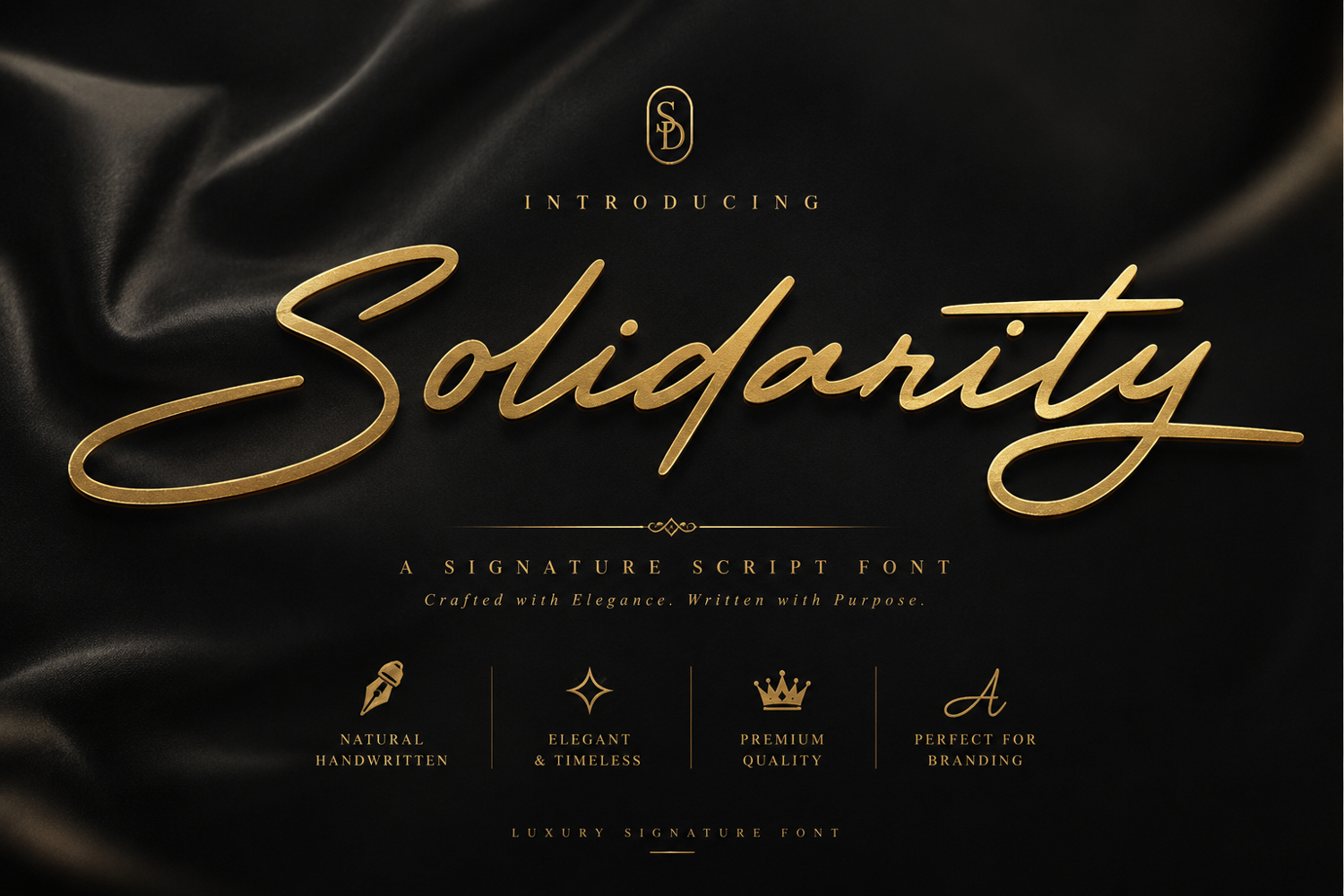
Solidarity Signature
Discover the understated elegance of Solidarity, a superbly crafted handwritten font steeped in authenticity. Marked by organic scratches, Solidarity effortlessly reflects an artisan touch, bringing an enticing earthiness to your design palette. Picture it breathing life into your logo or branding projects, or adding an intimate voice to wedding designs and social media posts. Visualize it enhancing the appeal of advertisements, gracing product packaging and designs, or enriching photography with its distinctive watermark. Let its handwritten charm enhance your stationery or add warmth to your invitations. When your project requires a taste of genuine handwriting, Solidarity is your go-to font.